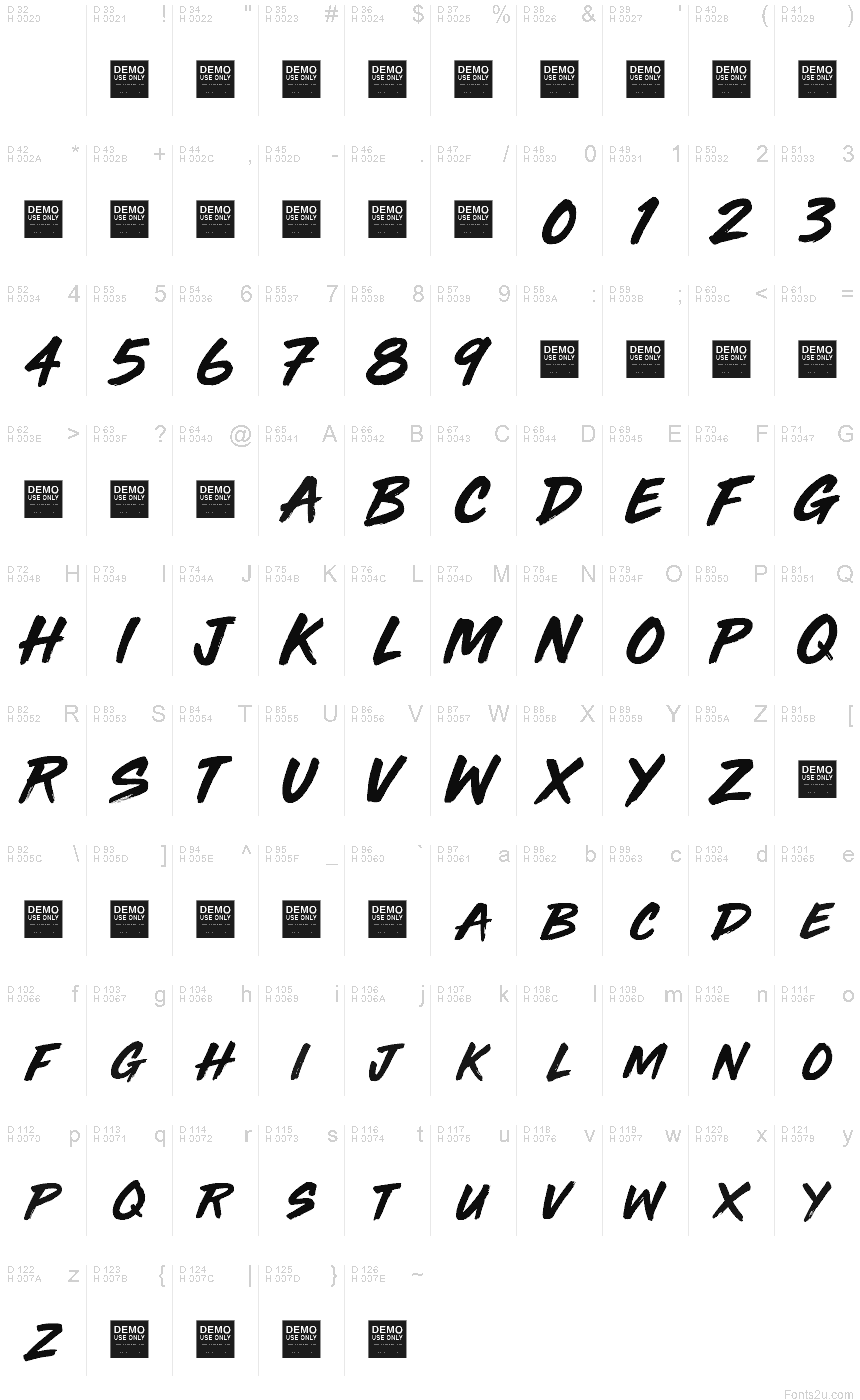
Third Rail by BLKBK is a free brush script with broad, forceful capitals and the quick movement of hand-painted lettering. The strokes shift in width, with blunt starts, tapered exits, and streaky edges that keep the forms raw rather than polished. Several letters lean or overlap slightly.
Street-art and underground music references make it a convincing fit for gig posters and apparel graphics, where its ragged silhouette can become part of the artwork. It also suits action-sports branding and festival campaigns, especially when the lettering needs to echo painted signs, marker scrawls, or energetic illustration.